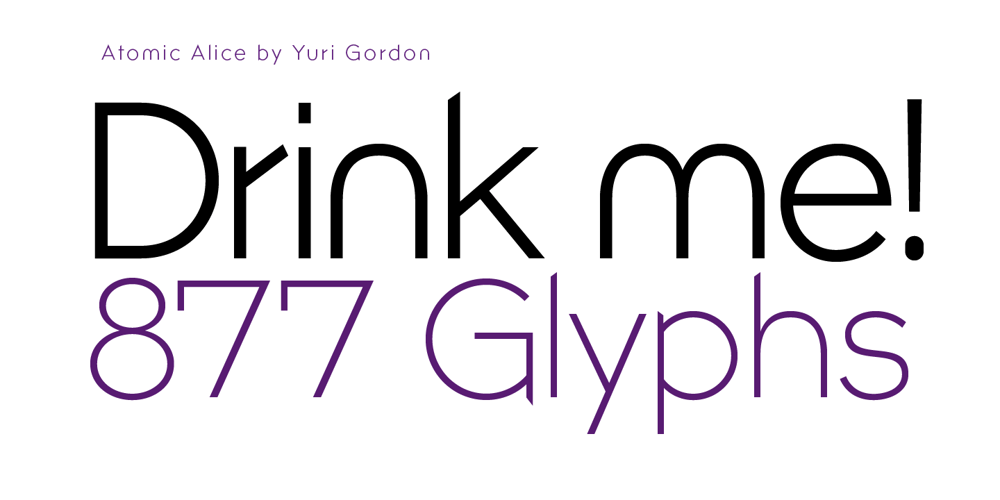
Atomic Alice
Atomic Alice font
Atomic Alice Font Family was designed by Yuri Gordon and published by Letterhead Studio-YG. Atomic Alice contains 10 styles and family package options. Atomic Alice was designed by Yuri Gordon in 2018. This typeface is simple and clear, with strong character. Gives wide opportunity to create expressive texts with 877 glyphs. Atomic Alice has has some OpenType features including small caps, stylistic alternates and huge amount of ligatures.